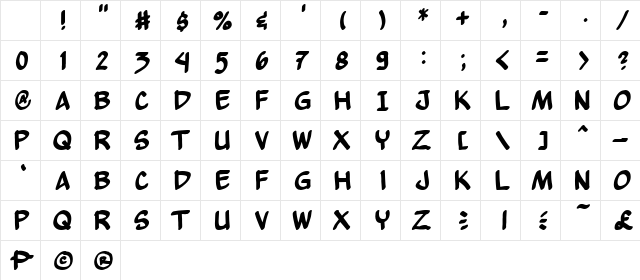
Yew Basturd Normal Free Font
Yew Basturd Normal
Design Context for Yew Basturd
Yew Basturd is a composed and adaptable typeface that performs quietly and consistently across a wide range of design contexts.